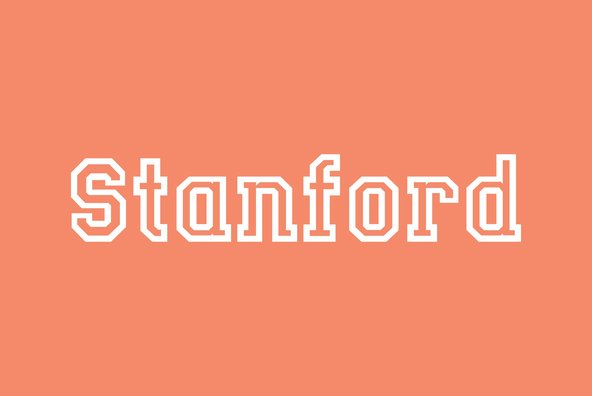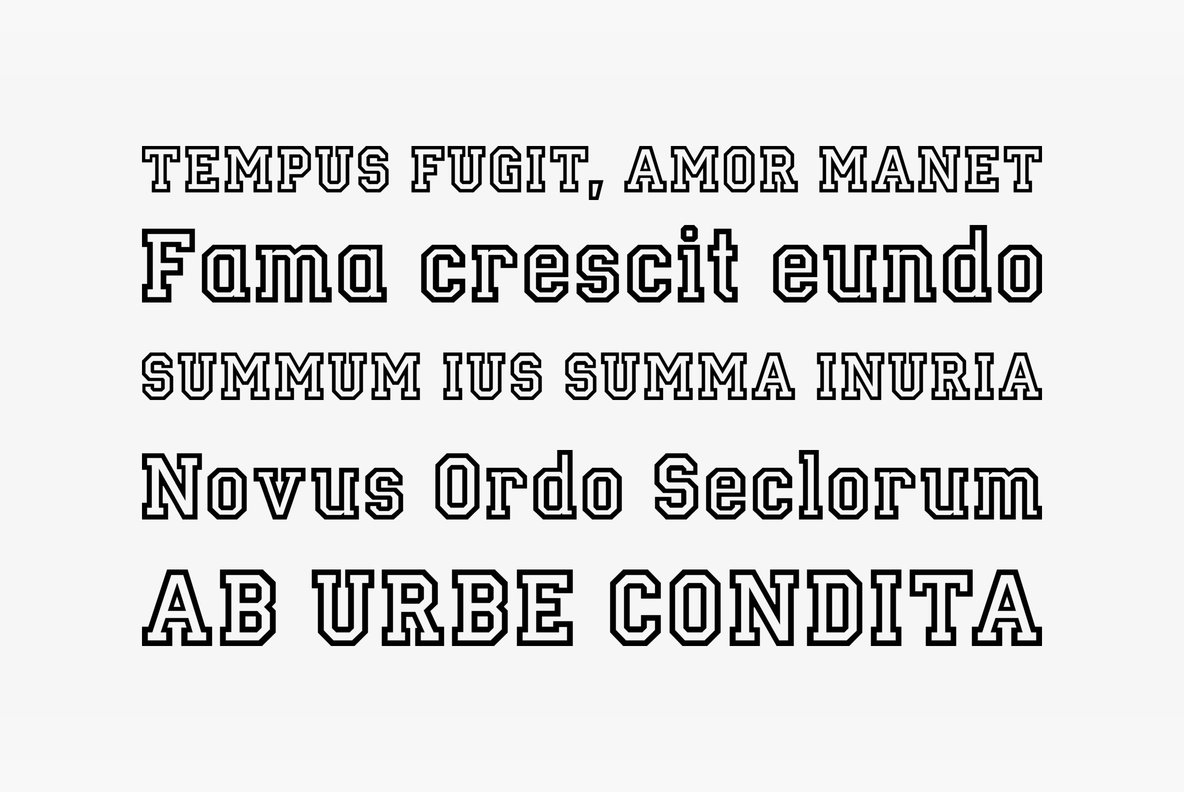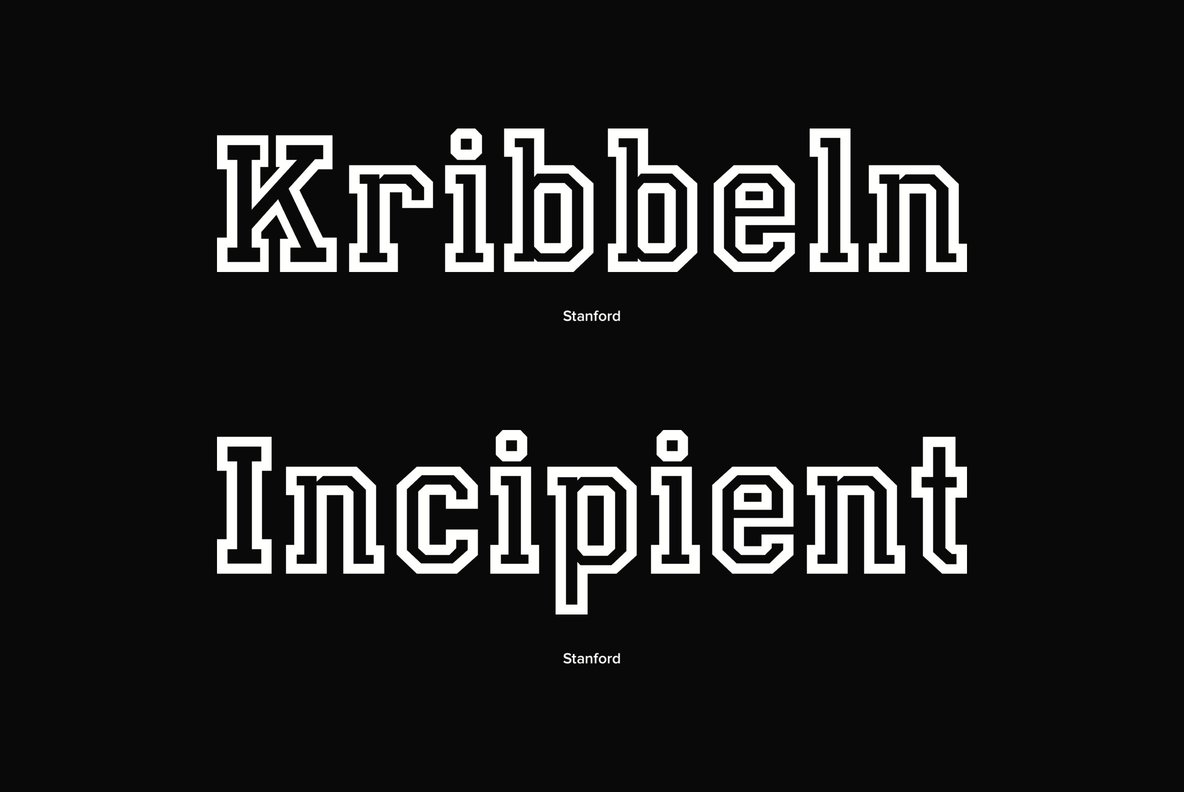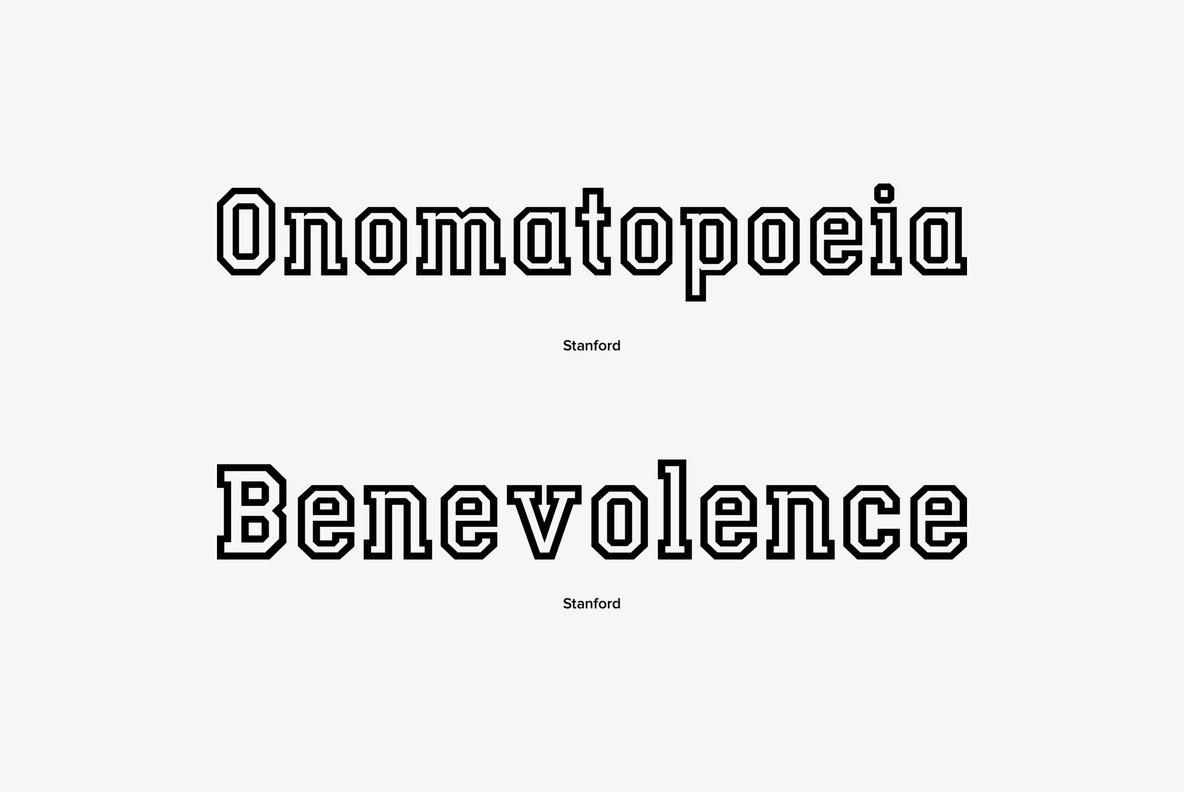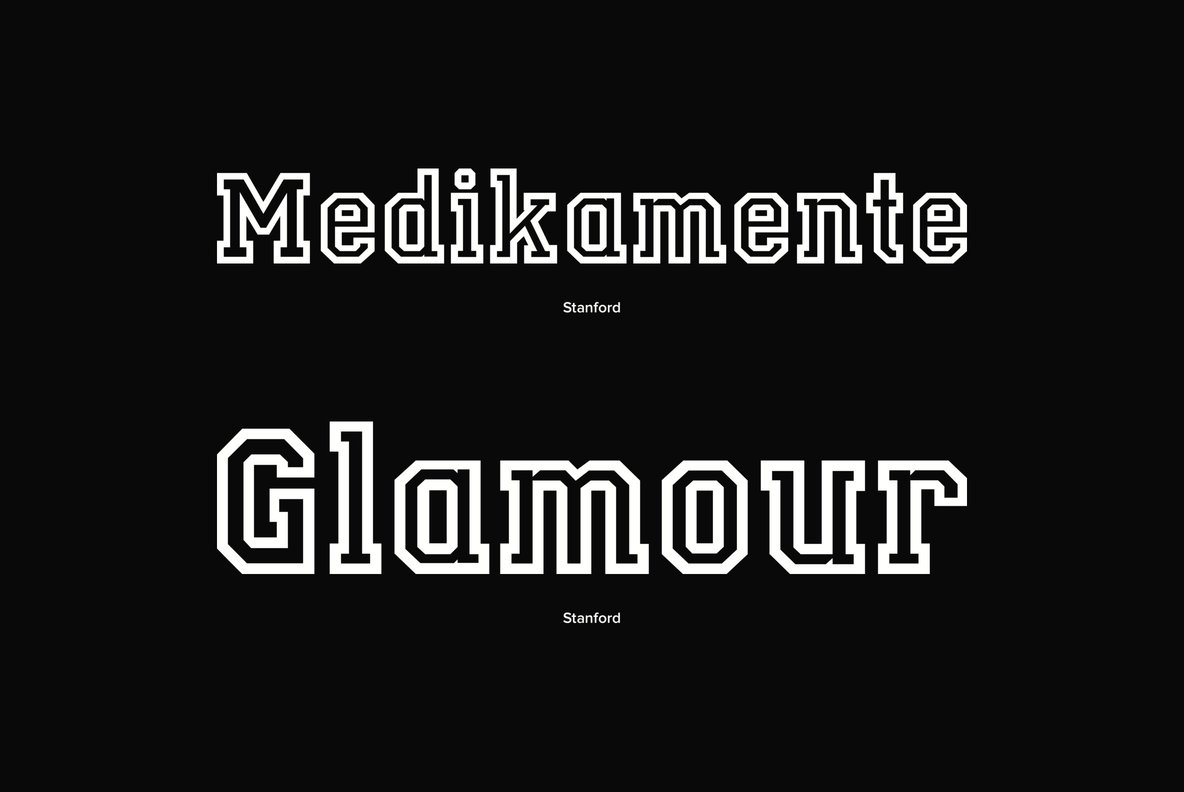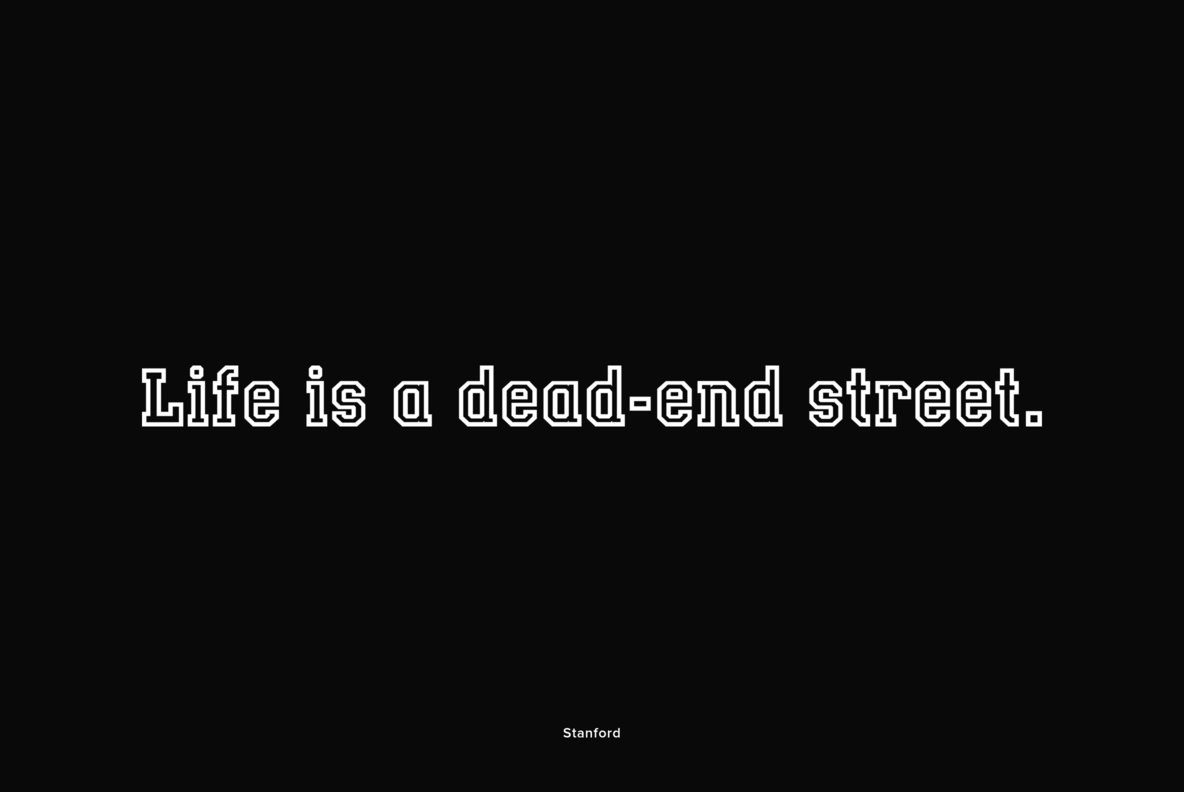
Stanford
Foundry: profonts
The strong, geometric letterforms of this typeface incorporate a heavy outline and were inspired by college and university sportswear, making Stanford an excellent choice for work associated with sports in general.